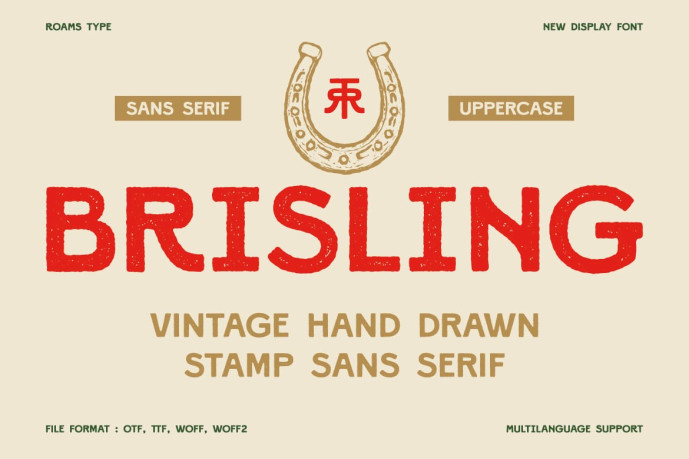
Brisling – Vintage Stamp Font
Designer: Abdul Rochman
BRISLING inspired by vintage sans serif display font crafted with a hand-drawn soul. Designed to bring a nostalgic yet aesthetic, this typeface blends classic retro charm with modern usability—perfect for standout typography projects. With its strong uppercase structure and slightly rugged character, Brisling delivers a striking presence whether used in branding, packaging, & posters.